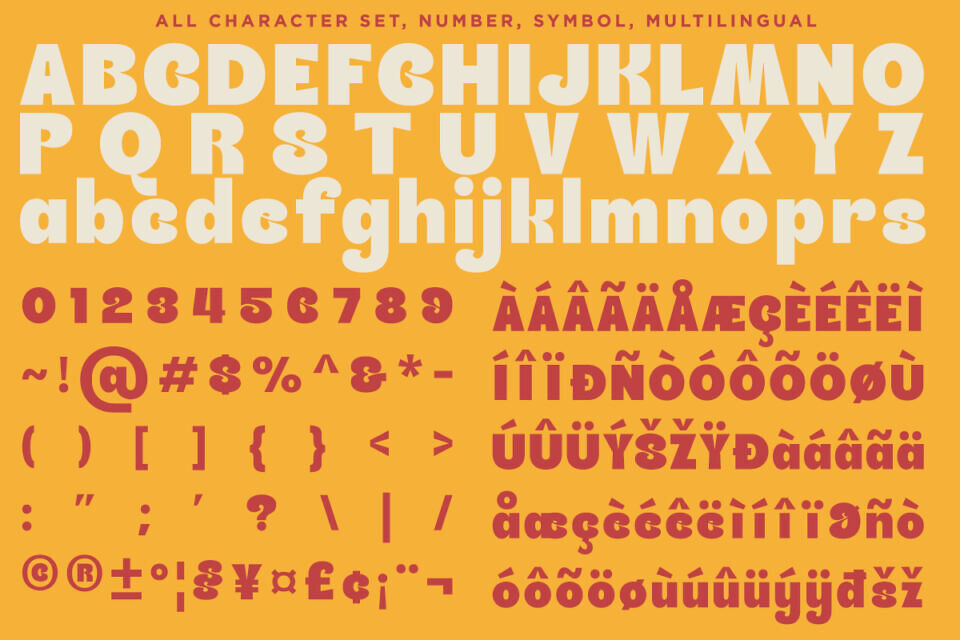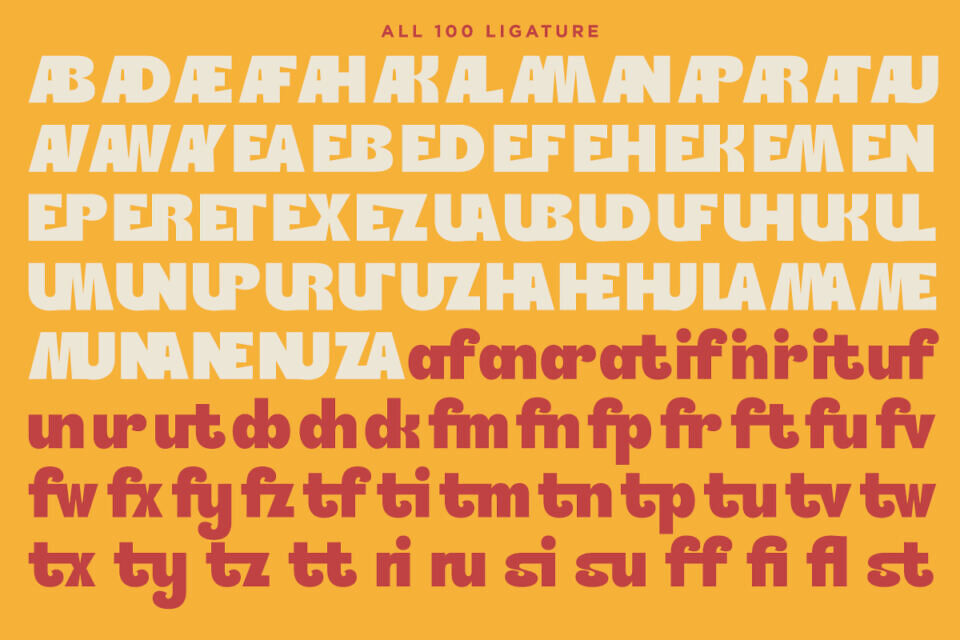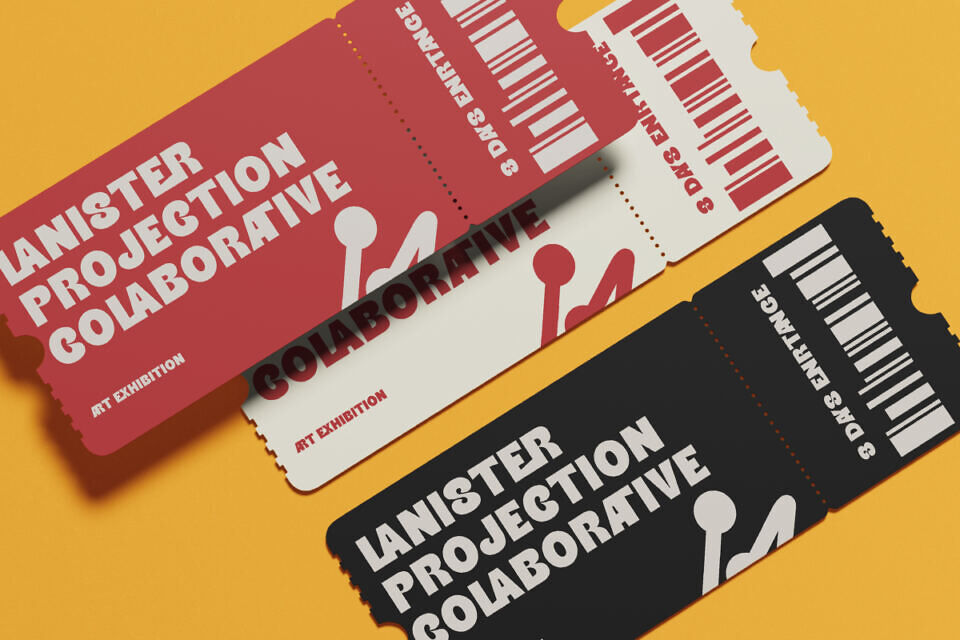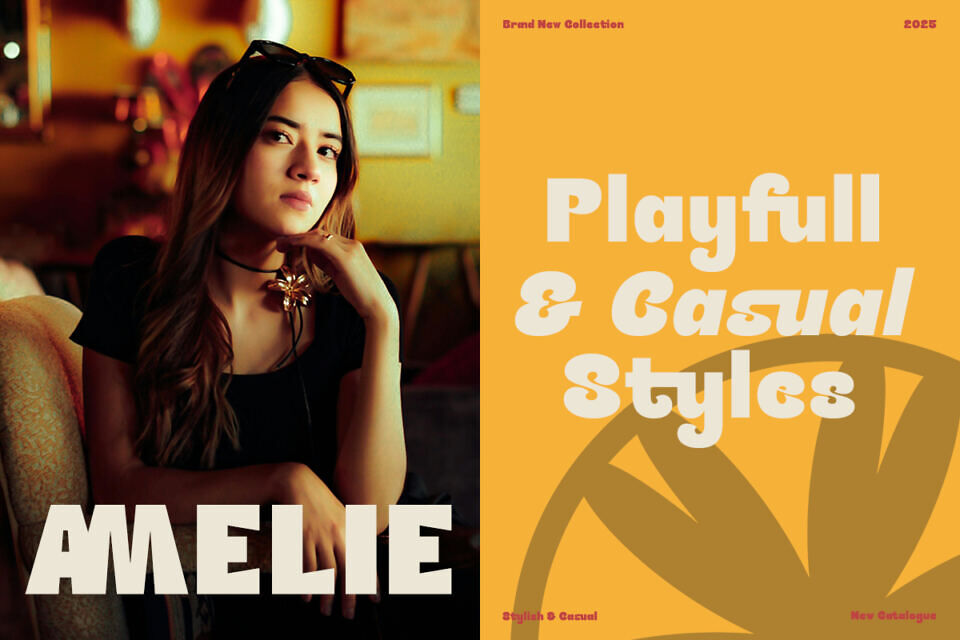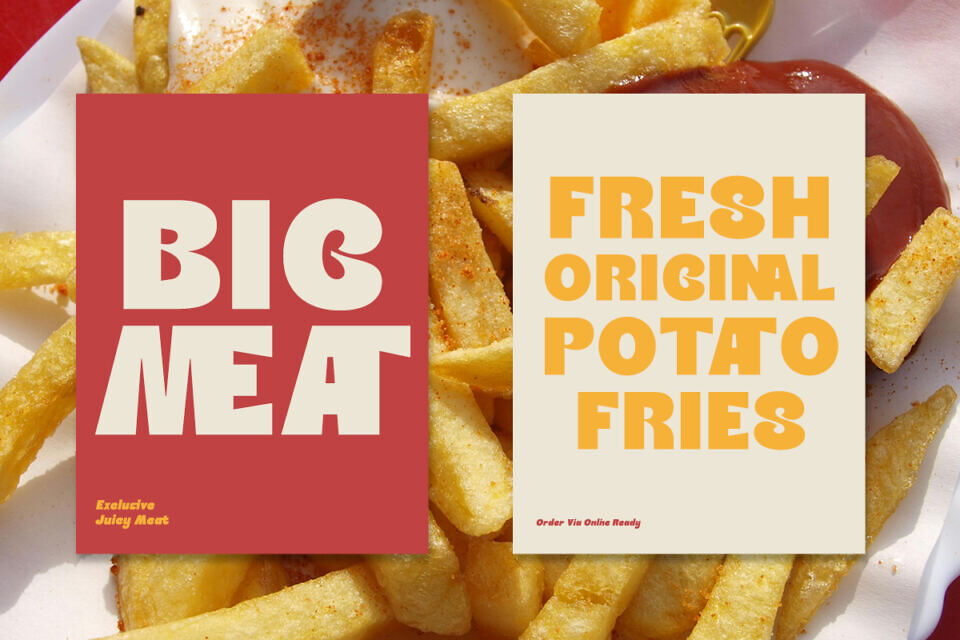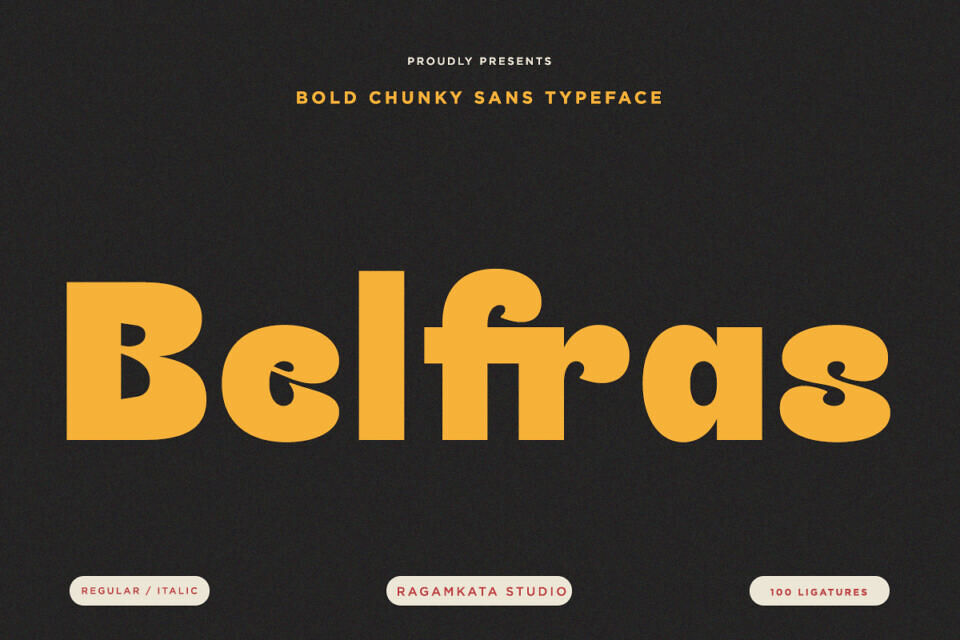
Belfras Font
Belfras is a striking display font designed to make a powerful impression. Perfect for logos, posters, headlines, and social media visuals, this font suits a wide range of branding projects. Its distinctive style guarantees your designs stand out in any setting.